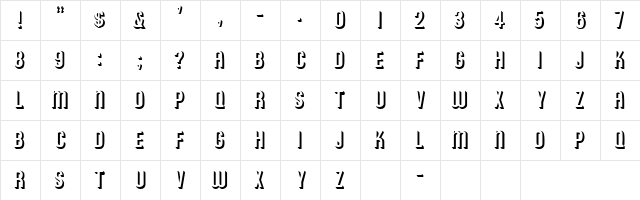
Shadow 4 Regular
Design Context for Shadow 4 Typeface
Shadow 4 is built around its visual character rather than neutral utility — its distinctive forms are designed to make an impression at display sizes.
Font Pairing: Pair with a clean neutral sans-serif for body copy to let Shadow 4's character lead without overwhelming the composition.
Pro Tip: Use Shadow 4 exclusively at display sizes — it was designed to be seen, not read at length. Let a neutral companion handle body copy.